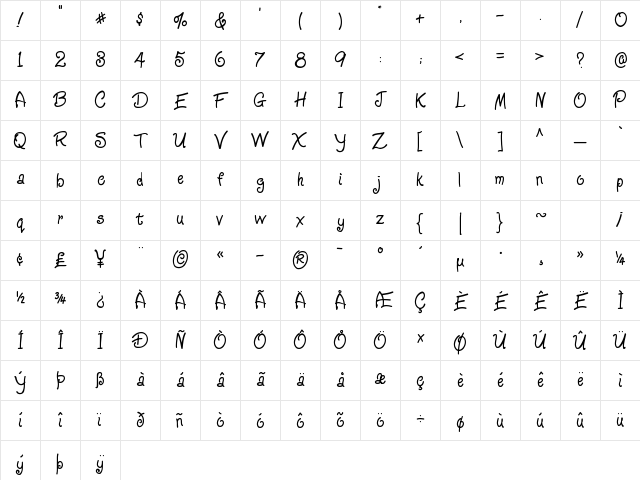
Ziggy Zoe Regular
Design Context for Ziggy Zoe
Ziggy Zoe is a composed and adaptable typeface that performs quietly and consistently across a wide range of design contexts.
Pro Tip: Use Ziggy Zoe in both headline and body roles to test its range before committing to a single application.